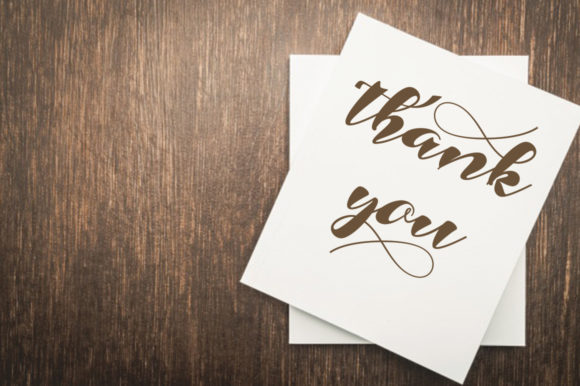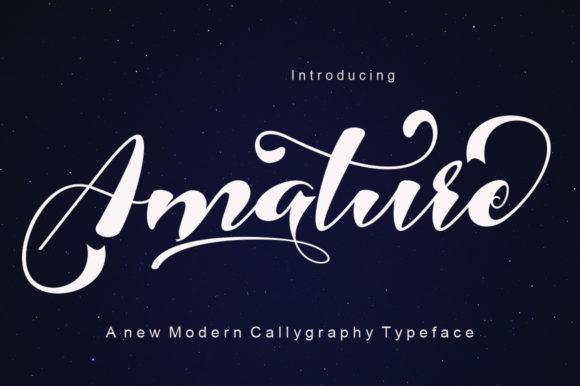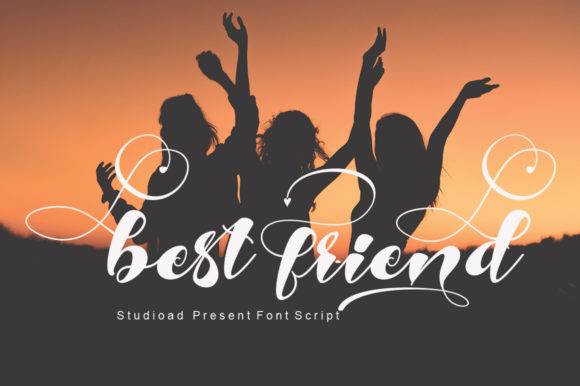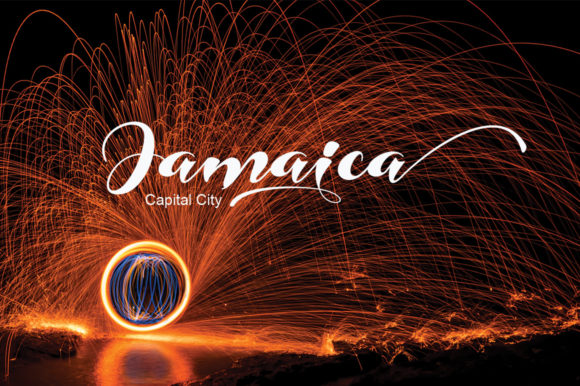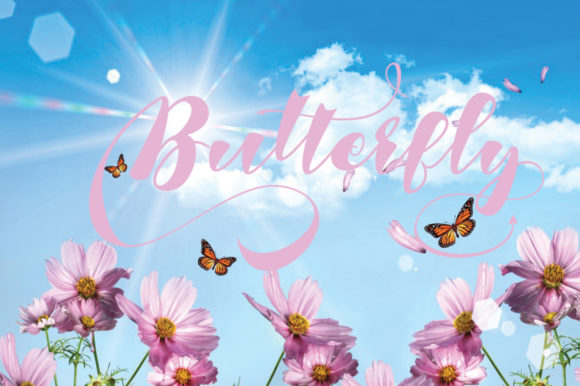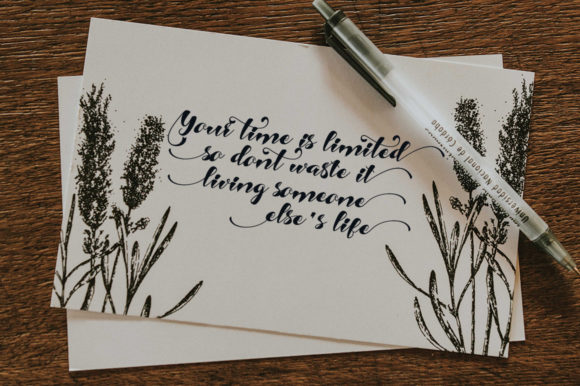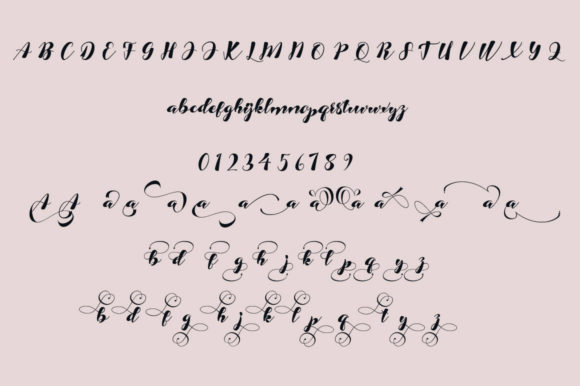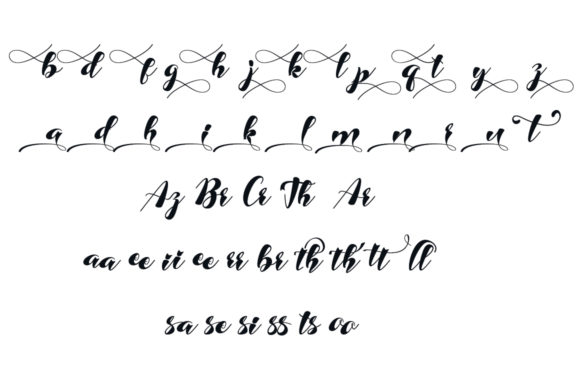
HomeScript FontsAmature Font Script Fonts Amature Font FacebookXPinterestWhatsApp Amature Font Poster 2 Amature Font Poster 3 Amature Font Poster 4 Amature Font Poster 5 Amature Font Poster 6 Amature Font Poster 7 Amature Font Poster 8 Amature Font Poster 9 Amature Font Poster 10 About Amature Font Amature has it’s own very unique style of calligraphy and suitable for any use in most modern design. DOWNLOAD NOW People also explored Leslies Script Font Simply Happy Font Gladione Font BD Medled Sometimes Font Highway Font Hazel Font California Font Kimberly Font 295 0 TagsAmature Font Previous articleMylea FontNext articleKalled Font LEAVE A REPLY Cancel reply Comment: Please enter your comment! Name:* Please enter your name here Email:* You have entered an incorrect email address! Please enter your email address here Website: Save my name, email, and website in this browser for the next time I comment. Personal Use Free Sefiya Personal Use Free Read more about this font Panaroe Personal Use Free Read more about this font Bigstone Personal Use Free Read more about this font Bosque Font Personal Use Free Read more about this font BLOG How to Cut Any Font on Cricut: Convert a Font to SVG (Free) Turn any font into a clean SVG so it cuts crisp on Cricut - a quick 3-step workflow using a free font-to-SVG tool. Where to Buy American Fonts Online in 2024 Using Fonts in Digital Marketing: Tips to Strengthen Your Brand Identity Top 10 Handwritten Fonts That Elevate Your Designs